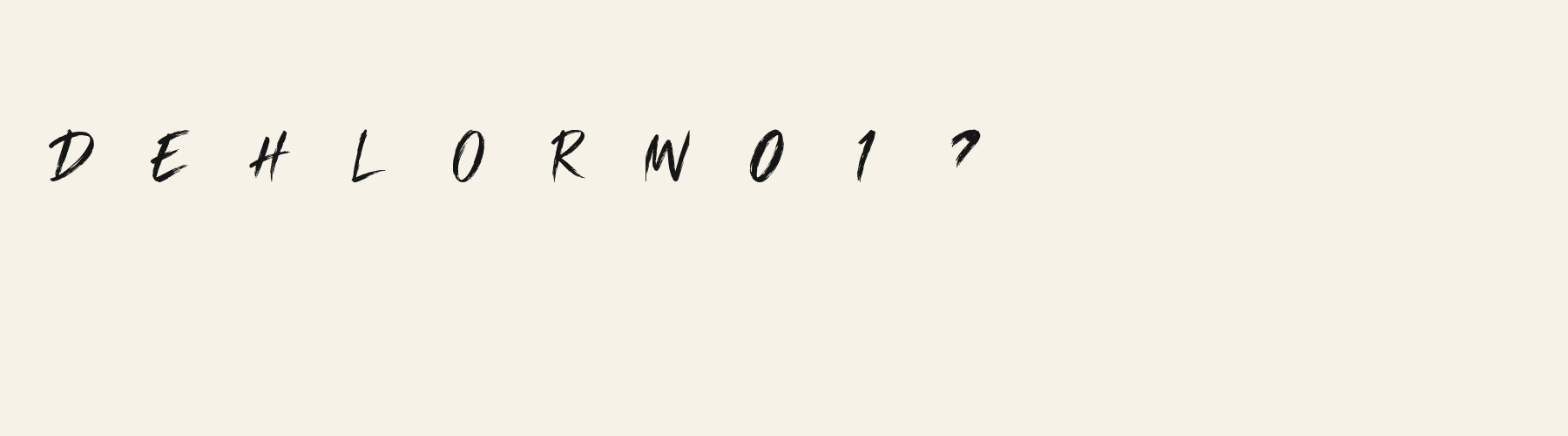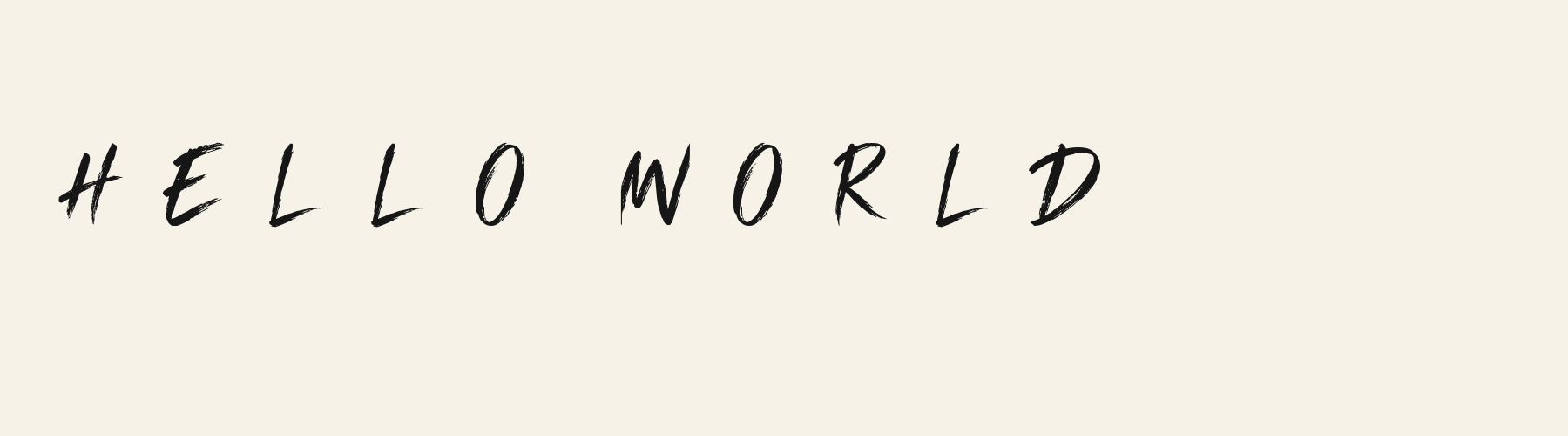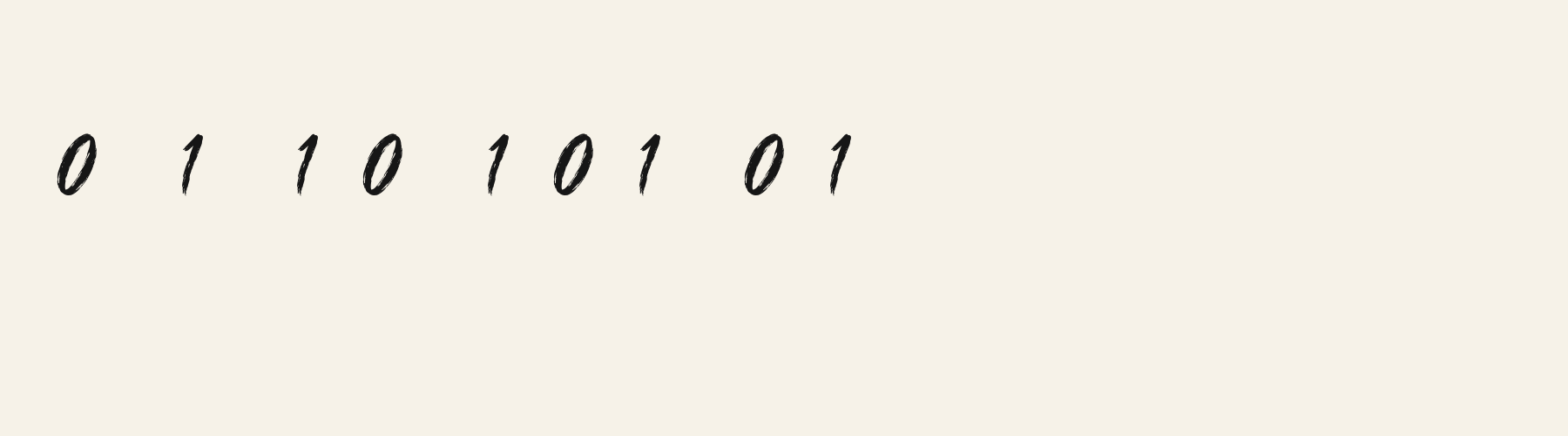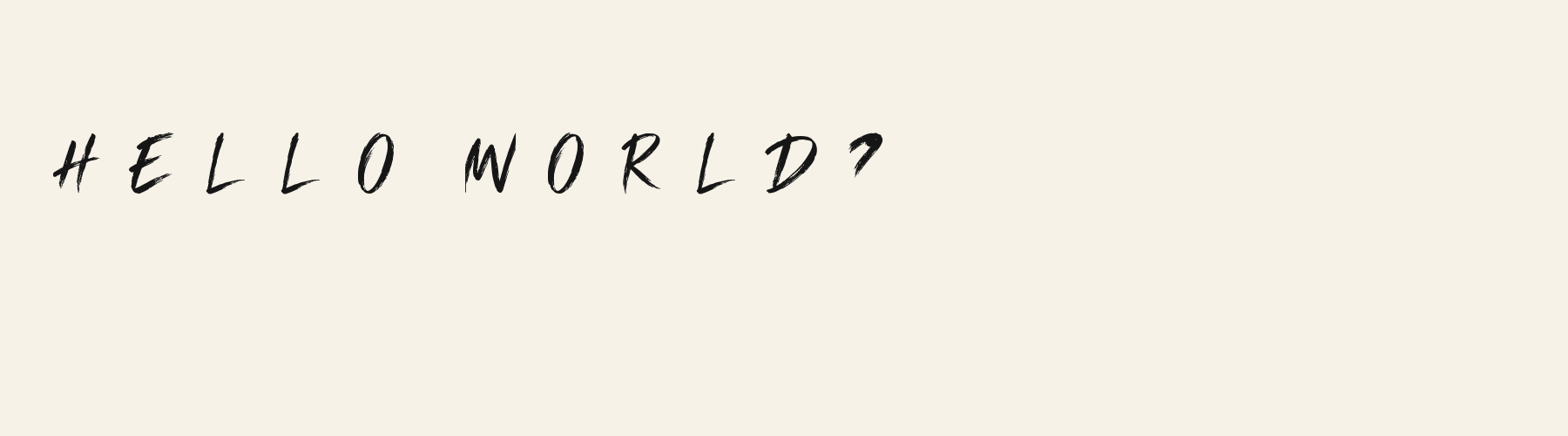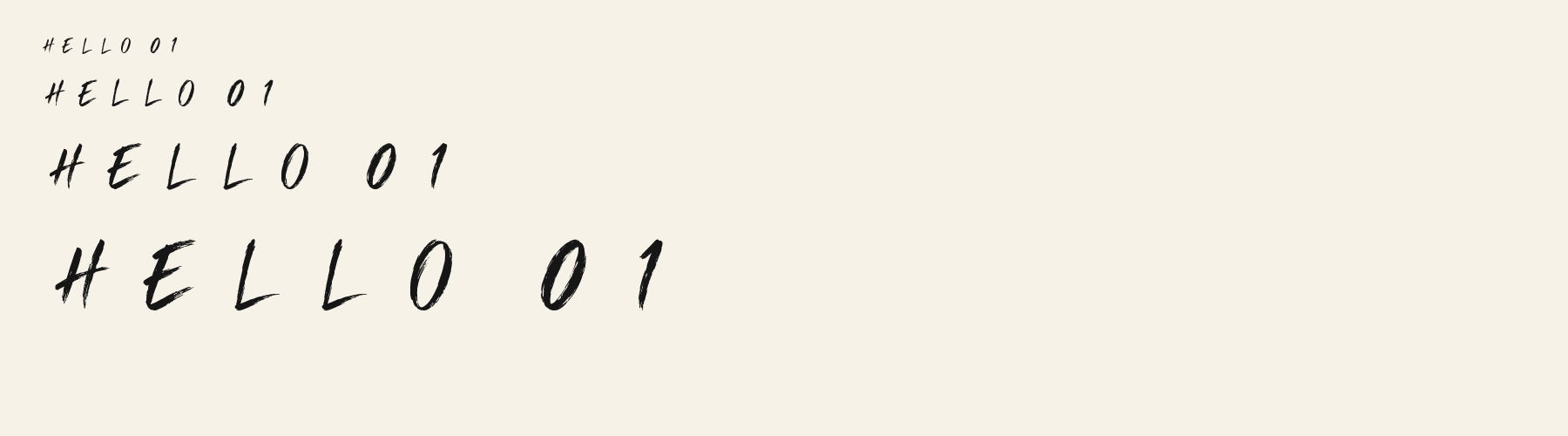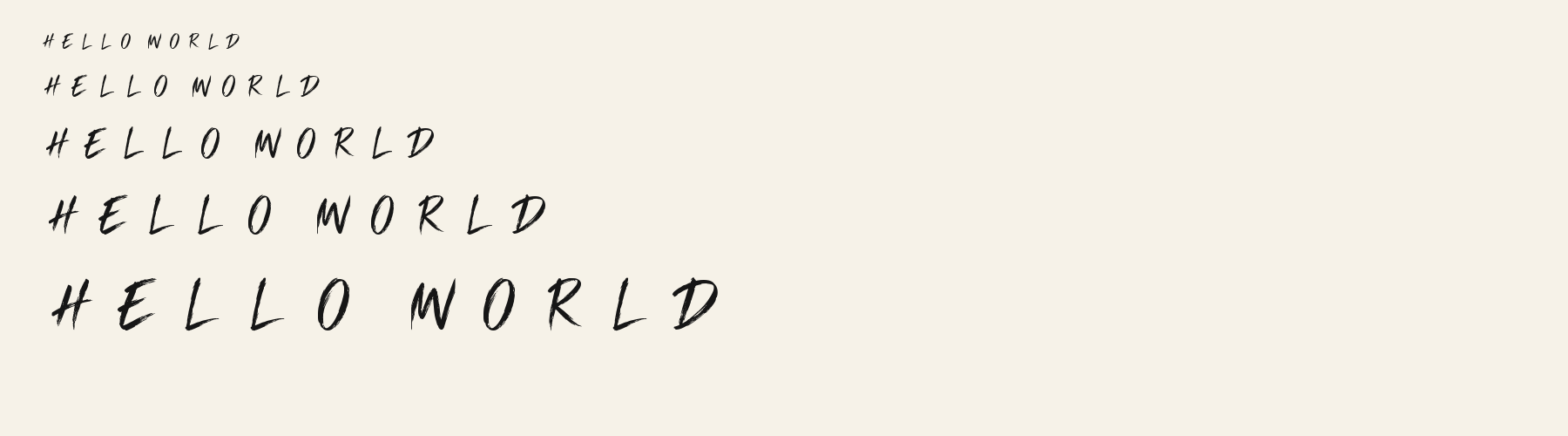
Script Brush Signature Dry Edge Gesture Font
Script Brush Signature pairs slanted, mostly separate capitals with rough stroke edges and abrupt changes in weight.
Dry Edge Gesture Letterforms
Script Brush Signature pairs slanted, mostly separate capitals with rough stroke edges and abrupt changes in weight. The E sends pointed arms outward, with a ragged upper stroke and a longer lower sweep. The L drops into an angular foot that flicks right, while the R pushes a tapered diagonal leg away from its rounded bowl. Narrow oval counters keep the O open within its uneven dark outline. Pale streaks interrupt some strokes, adding a dry, restless texture. Together, these details give short wording a brisk, assertive mood without elaborate loops or surrounding flourishes.
Inspect repeated L shapes, the R leg and rough O strokes in your actual wording, especially as previews shrink. Check lowercase separately from the shown capitals. Accented Latin and other scripts need separate coverage and appearance checks; these specimens establish neither.
Try this face for a brief lead phrase, with a restrained sans serif for supporting text and labels. Its frayed edges, tilted capitals and sharp exits supply movement; an even companion could give details a steadier rhythm.
Script Brush Signature: letterforms and layout
E
Compare smaller and larger previews of these uppercase words. The larger setting exposes the frayed E arms and streaked O strokes; at the smaller setting, those details recede and the pointed silhouettes carry more of the expression.
In this uppercase phrase, Script Brush Signature has dark, uneven strokes, pointed E arms and angular L feet. Choose it when the wording needs a brisk, rough-edged presence with relatively compact gestures.
Script Brush Signature font in use
Product label. The dry edges and pointed terminals give a short product mark a tactile, energetic presence. AFTER HOURS
Book or album cover. Slanted capitals and decisive diagonal strokes give a brief cover title a restless sense of movement. KEEP GOING
Social post. Uneven dark strokes make a short message expressive while leaving room for supporting text and imagery.
The scenes are illustrations drawn on this page with Script Brush Signature itself, not client work.
About Script Brush Signature
Its lowercase sits low: the x-height is 44.4% of the cap height, where the median for script fonts is 48.5%, lower than 52 of the 53 other script fonts. Ascenders on b, d, h, k and l rise 5.1% above the capitals, and descenders on g, j, p, q and y drop 36.4% of the cap height below the baseline, shallower than 48 of the 53 other script fonts. Script Brush Signature runs 6.6% wider than the median for script fonts: an average lowercase letter, spacing included, is 68.3% as wide as the capitals are tall (an average capital, 68%). The o is wider than it is tall, 1.37 to 1, and no capital is wider than H. The O stops 5.8% of the cap height short of H and stands 6.1% above the baseline.
The letters lean roughly 10° to the right. Ink covers 18.7% of each lowercase letter's box (its advance width by the cap height), lighter than 42 of the 53 other script fonts.
Its 95 characters include 52 Latin letters, plus 43 figures, punctuation marks and symbols; there are no accented Latin letters beyond A to Z. The word space measures 57.4% of the cap height, and the blank space either side of a lowercase letter takes up 4.5% of its width. The font carries no kerning, so spacing comes from each letter’s own side bearings. The figures have different widths, so columns of numbers set in Script Brush Signature will not line up exactly.
Measured from the version 0.3.0 font file. Comparisons are with the 376 published library fonts measured on November 8, 2026, 54 of them script fonts.
Includes all 95 printable Basic Latin characters, 95 characters in total.
Verified language coverage: English, Indonesian, Malay, Swahili, Zulu
- Structure
- Connected lowercase with dry brush pressure changes, rising entry strokes and long decisive exits
- Fast brush modulation with dry edges and assertive exit strokes
- Creator branding, packaging marks and short display phrases
- What fonts pair well with Script Brush Signature?
- Atrium Sans (sans serif), Ion Velvet Grotesk (sans serif) and Retro Serif Newsprint (serif) are drawn on a different letter structure, so Script Brush Signature can carry the headings while one of them sets the text. Each has its own page with a type tester for trying the pair.
- Which fonts are similar to Script Brush Signature?
- In the same script style: Notary Script (7% narrower); Script Signature Thin (lighter strokes, 20% wider); Darling Brush (heavier strokes, 13% wider).